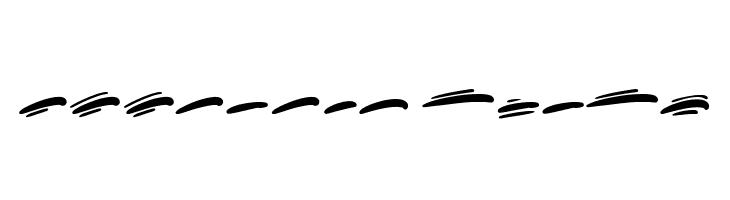
A bold, geometric slab serif font with a modern and industrial feel.
A bold, brush-textured font with an energetic and expressive style.
A bold, distressed font with a rugged, industrial aesthetic.
Bold, blocky font with a three-dimensional outline, ideal for impactful designs.
A bold, distressed font with a hand-painted, textured appearance.
A bold, angular font with a futuristic, graffiti-inspired style.
A dynamic handwritten font with fluid, slightly irregular strokes and a casual, elegant style.
A dynamic, brush-style font with expressive, fluid strokes.
A bold, italic font with a modern and dynamic style.
A bold, condensed font with a distressed texture and strong presence.
A bold, expressive handwritten font with dynamic strokes and a modern, edgy style.
A hand-drawn font using sign language gestures for each character.
A playful handwritten font with irregular strokes and a whimsical style.
A graceful script font with flowing, connected strokes and elegant curves.
A casual, handwritten script font with fluid, connected letters.
A lively and flowing script font with elegant, cursive letterforms.
A dynamic and elegant script font with flowing, cursive letterforms.
A flowing, cursive font with elegant, sweeping lines and a handwritten appearance.
A playful, handwritten font with smooth curves and a casual style.
A bold, brush-style font with an expressive and dynamic appearance.
A fluid and elegant handwritten font with smooth, flowing lines.
A lively handwritten font with fluid, expressive strokes and a playful bounce.
A lively, cursive script font with fluid, interconnected characters and varying stroke widths.
A whimsical, cursive script font with elegant loops and swirls.
A graceful and flowing script font with elegant curves and loops.
A playful, handwritten font with fluid strokes and a casual style.
A dynamic, cursive script font with bold, sweeping strokes and elegant flourishes.
A flowing, cursive script font with elegant, connected characters.